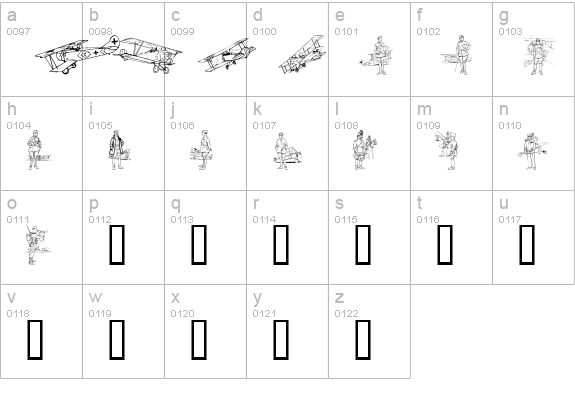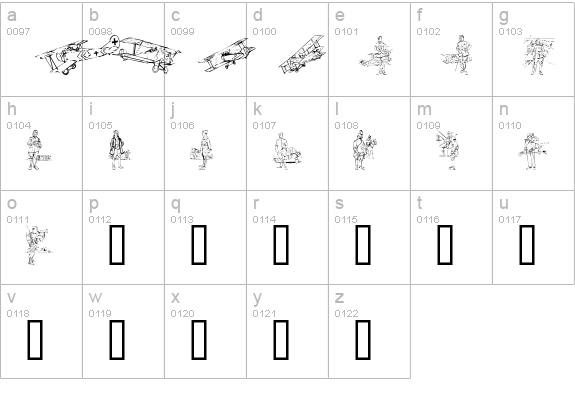
WW1 Planes Font Details
Introducing the breathtaking WW1 Planes font, a tribute to the iconic aircraft that graced the skies during the First World War. Immerse yourself in the rich history and timeless elegance of these magnificent planes, captured beautifully in every letterform of this extraordinary typeface. WW1 Planes font is a true masterpiece, meticulously crafted with attention to detail and a deep appreciation for the aviation pioneers of yesteryears. Each character effortlessly reflects the grace, power, and sophistication that defined these aerial marvels. From the sleek curves of the propellers to the intricate designs of the wings, every stroke of this font encapsulates the spirit of the era. This font is not only a remarkable homage to the warplanes of the past but also a versatile tool for modern design. Its vintage charm and classic appeal make it an ideal choice for various projects, from aviation-themed branding to historical publications and everything in between. Whether you're a graphic designer, a history enthusiast, or simply someone who appreciates fine craftsmanship, WW1 Planes font is sure to leave a lasting impression. And the best part? WW1 Planes font is available for free download exclusively at FontsMarket.com. We believe in making exceptional fonts accessible to all, and this remarkable typeface is no exception. So, don't miss out on the opportunity to add this incredible font to your collection. Download WW1 Planes font today and let your designs soar to new heights with its timeless elegance and captivating aura.